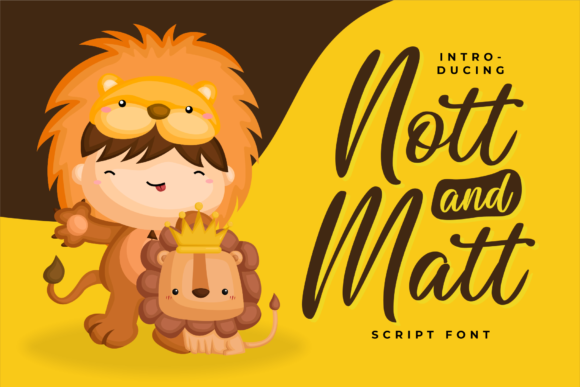
Journey into a world where your words dance with elegance, entwined by the allure of Nott and Matt's script. Discover a font family crafted with passion, designed to turn your digital dreams into a visual symphony. With its meticulous balance and captivating flow, Nott and Matt unveils a world of boundless creativity, just waiting to be explored.
Indulge in the captivating allure of Nott and Matt's exquisite design. Each letter, meticulously crafted, dances across the page with a grace that will leave you breathless. Experience the joy of expressing yourself with fonts that transcend the ordinary, transforming your words into art.
Nott and Matt's versatility knows no bounds, effortlessly adapting to a myriad of projects. Whether you're designing logos, branding, social media posts, or wedding invitations, Nott and Matt seamlessly blends with your vision, adding a touch of sophistication and charm to every creation.
Let Nott and Matt ignite your creativity and unleash your inner artist. Dive into a world of endless possibilities, where your imagination takes center stage. With Nott and Matt as your guide, embark on a journey of self-expression and leave an indelible mark on the digital landscape.
Nott and Matt: Where elegance meets innovation, where your words take flight.